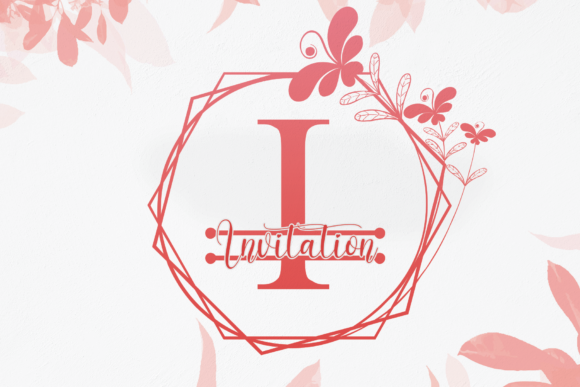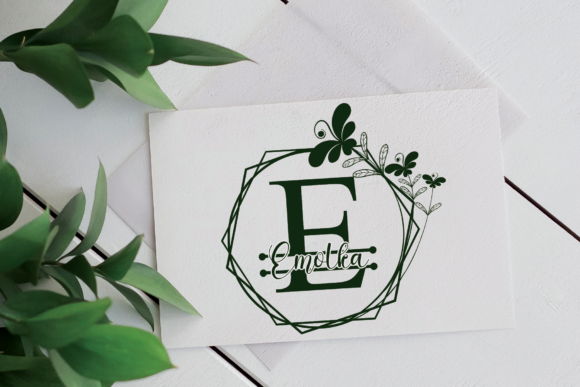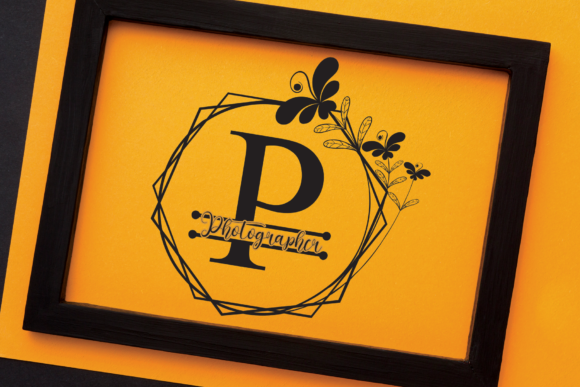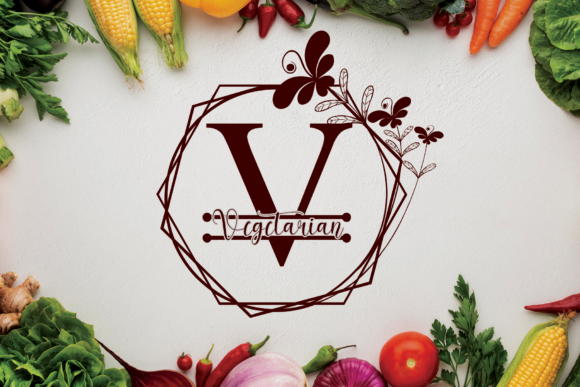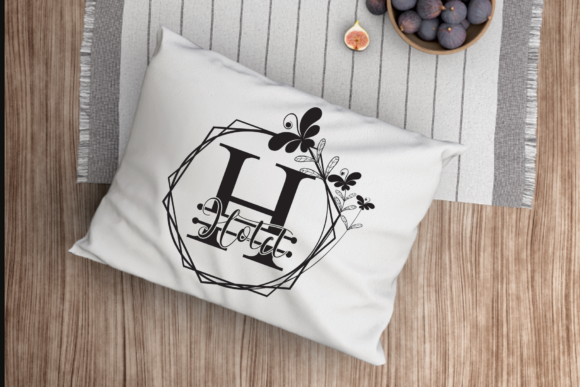
Stealing Hearts with Every Stroke: The Enchantment of Invitation Font
Have you ever been brainstorming a design idea, and suddenly, a spark of creativity hits you like a ray of sunshine on a cloudless day? It’s that magical moment when you know exactly what you want to create – a love letter that will melt the heart, a wedding invitation that will make the couple swoon, or a design concept that will leave everyone in awe. For designers and crafty enthusiasts, that spark often leads to the discovery of the perfect font – and that’s where the Invitation Font comes in.
This dainty and highly detailed decorative font is the perfect addition to any romantic or elegant design. Its delicate strokes and intricate details evoke a sense of nostalgia and whimsy, making it a valuable tool for designers looking to create unique and memorable designs. Whether you’re planning a wedding, writing a love letter, or simply want to add a touch of romance to your design, the Invitation Font is sure to cast a spell of enchantment on your audience.
Invitation Font Key Features
- Unique Characteristics: Invitation Font features elegant, cursive script and ornate details, making it ideal for wedding invitations, formal events, and special occasions.
Invitation Font Review
As a designer, I’ve had the chance to work with various fonts, and the Invitation Font is one of the most unique ones I’ve come across. Here are my thoughts on this beautiful script font.
- ✨ Elegant and sophisticated feel: The Invitation Font exudes a sense of luxury and refinement, making it perfect for high-end wedding invitations, luxury brands, or any other project that requires a touch of elegance.
- ✨ Beautiful connection between letters: The script font features beautiful connections between letters, creating a seamless and flowing look that’s both visually appealing and easy to read.
- ✨ Versatile: While the Invitation Font is perfect for formal invitations, it can also be used for other projects like wedding stationery, certificates, and more.
- ⚠️ Limited character set: One of the main limitations of the Invitation Font is its limited character set, which can make it difficult to use for longer texts or complex projects.
- ⚠️ Not suitable for body text: Due to its elegant and refined nature, the Invitation Font is not suitable for body text and should be used sparingly to avoid overwhelming the reader.
Overall, the Invitation Font is a beautiful and sophisticated script font that’s perfect for formal invitations and luxury brands. While it has some limitations, its unique feel and beautiful connections between letters make it a great addition to any designer’s toolkit.
Tips for Getting the Most Out of Invitation Font
For a more elegant look, use Invitation Font in conjunction with a floral or watercolor design.
To add a personal touch, use Invitation Font to write a heartfelt message or the guest of honor’s name.
Invitation Font is perfect for:
- Baby showers and baby announcements
- Wedding invitations and wedding stationery
- Graduation announcements and party invitations